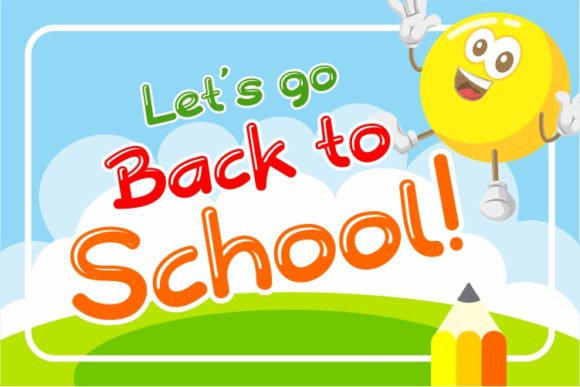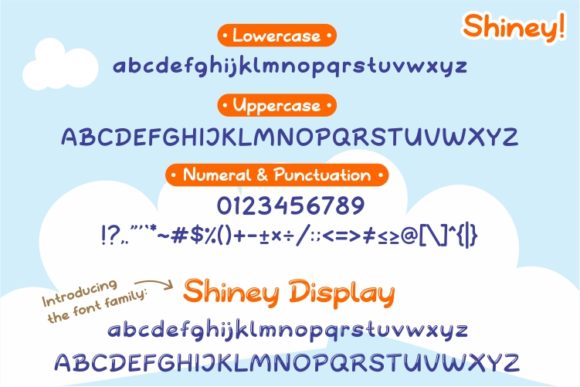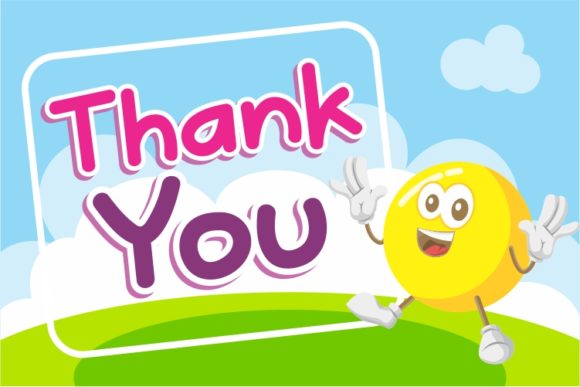
Introduction to Shiney Font Font
Fonts play a crucial role in design, and the Shiney Font font is a typeface that brings both character and versatility to any project. Whether you’re working on a branding project, a website, or a print design, the Shiney Font font offers a unique style that can elevate your work.
Shiney is a cute and joyful display font.
It is perfect for children themed designs, especially when combined with bright colors So, enjoy this font and boost up your creativity.
Key Features of Shiney Font Font
Why Choose Shiney Font Font?
The Shiney Font font is more than just a typeface – it’s a design tool that helps you communicate your message with style and clarity. Its unique character set and versatile design make it suitable for a wide range of applications, from elegant invitations to bold headlines.
With its carefully crafted letterforms and balanced proportions, the Shiney Font font ensures readability and visual appeal across all mediums.
What makes Shiney Font font special?
The Shiney Font font stands out with its unique design, exceptional readability, and versatility across various design applications.